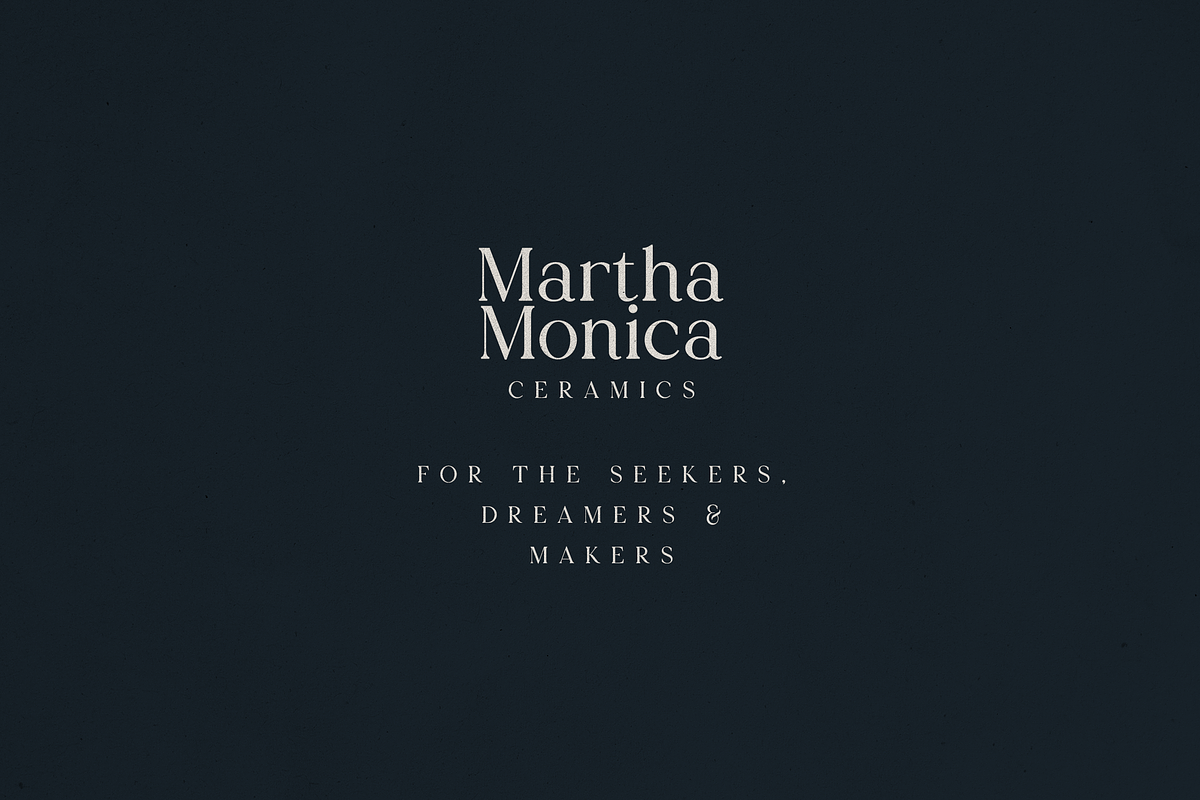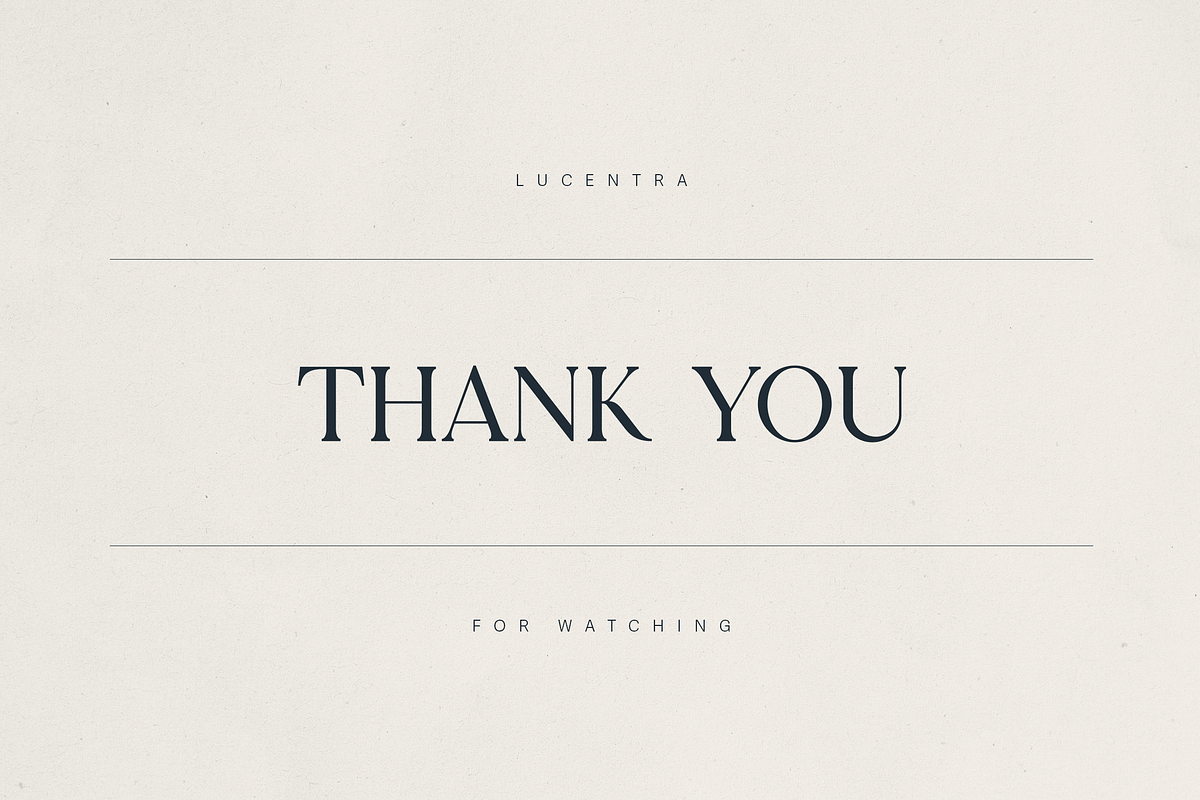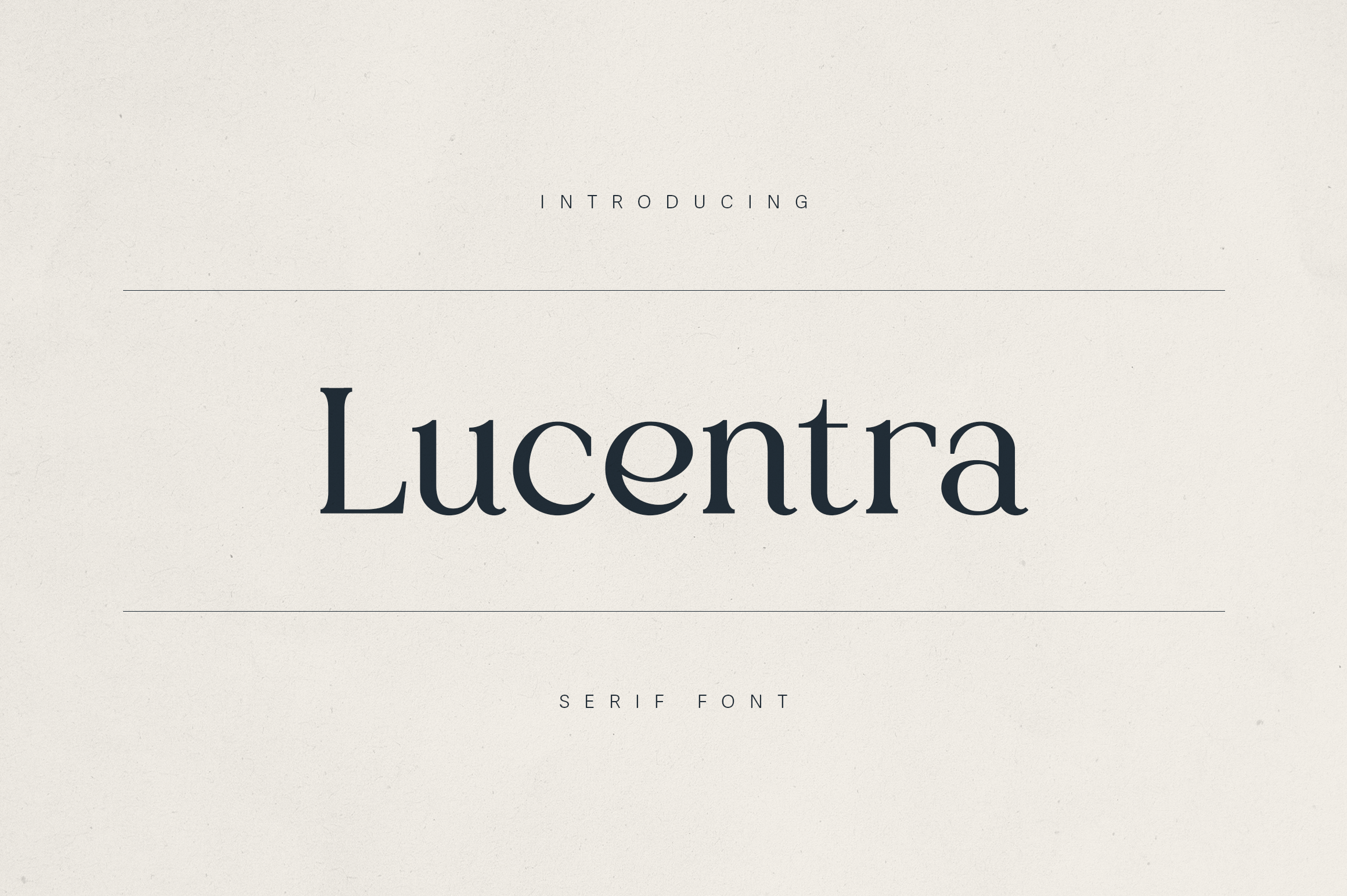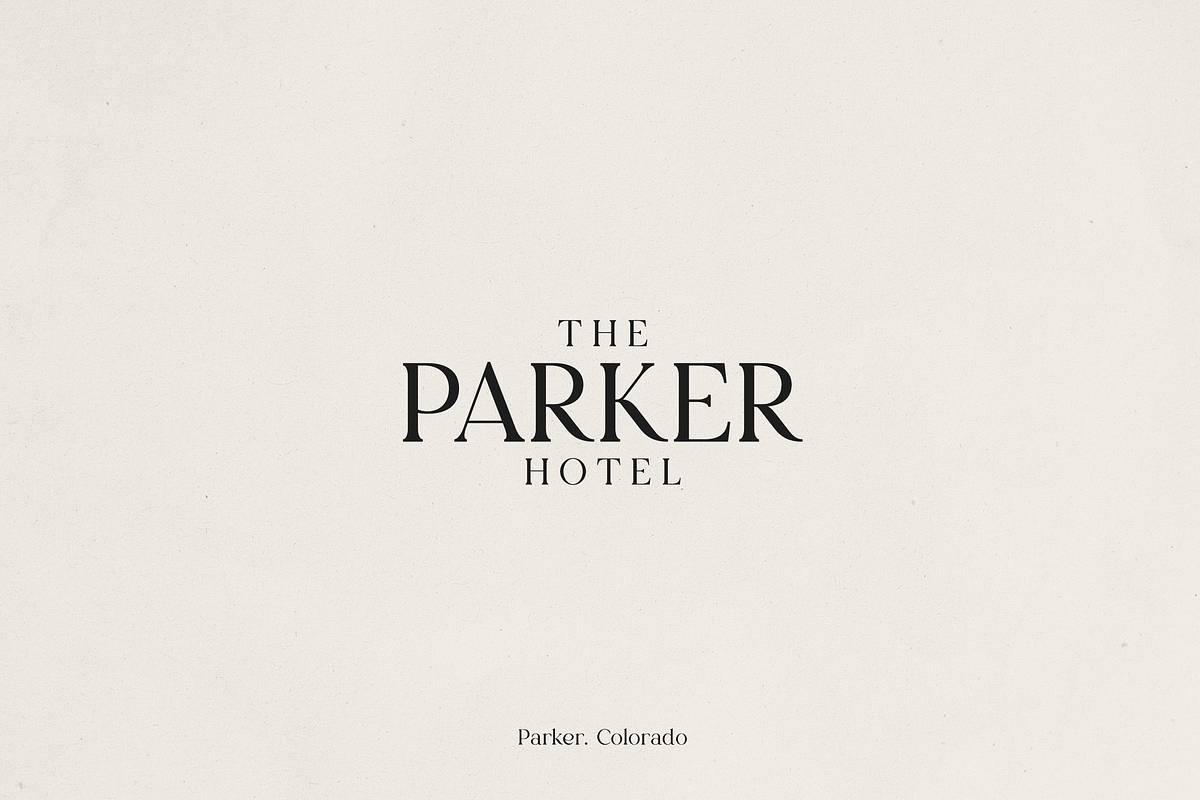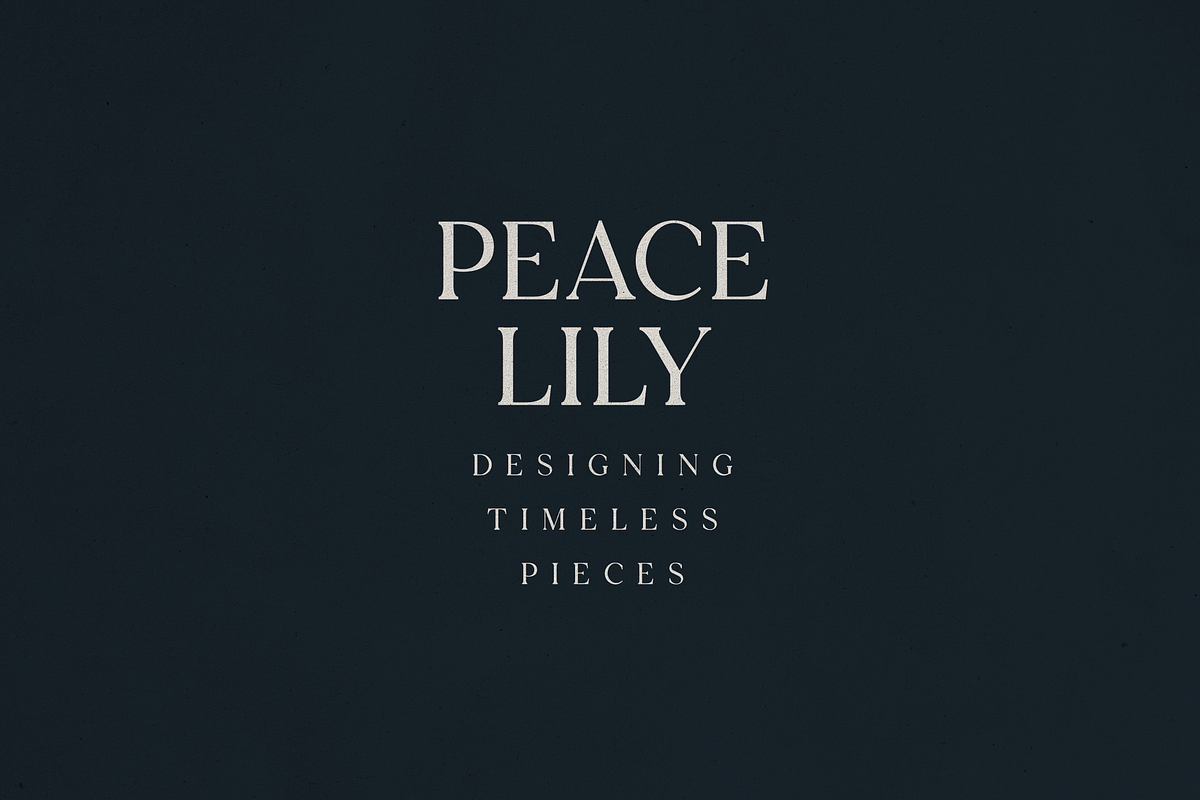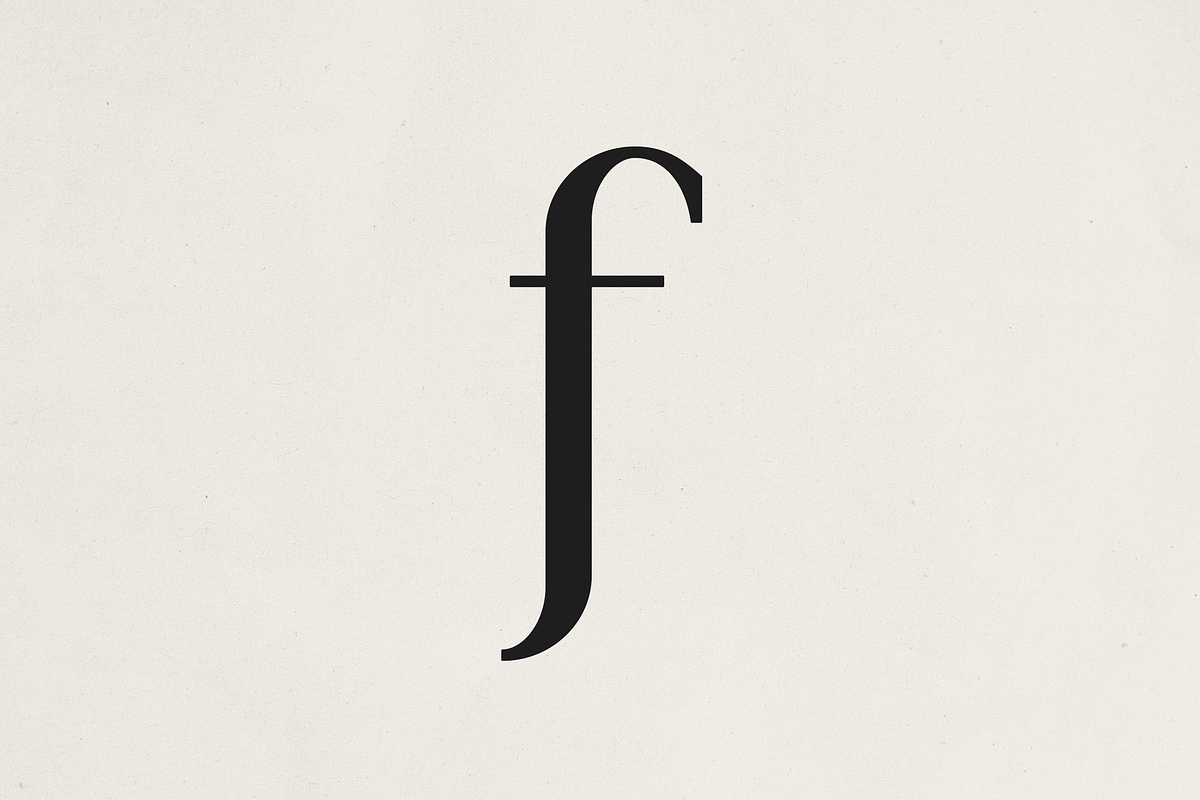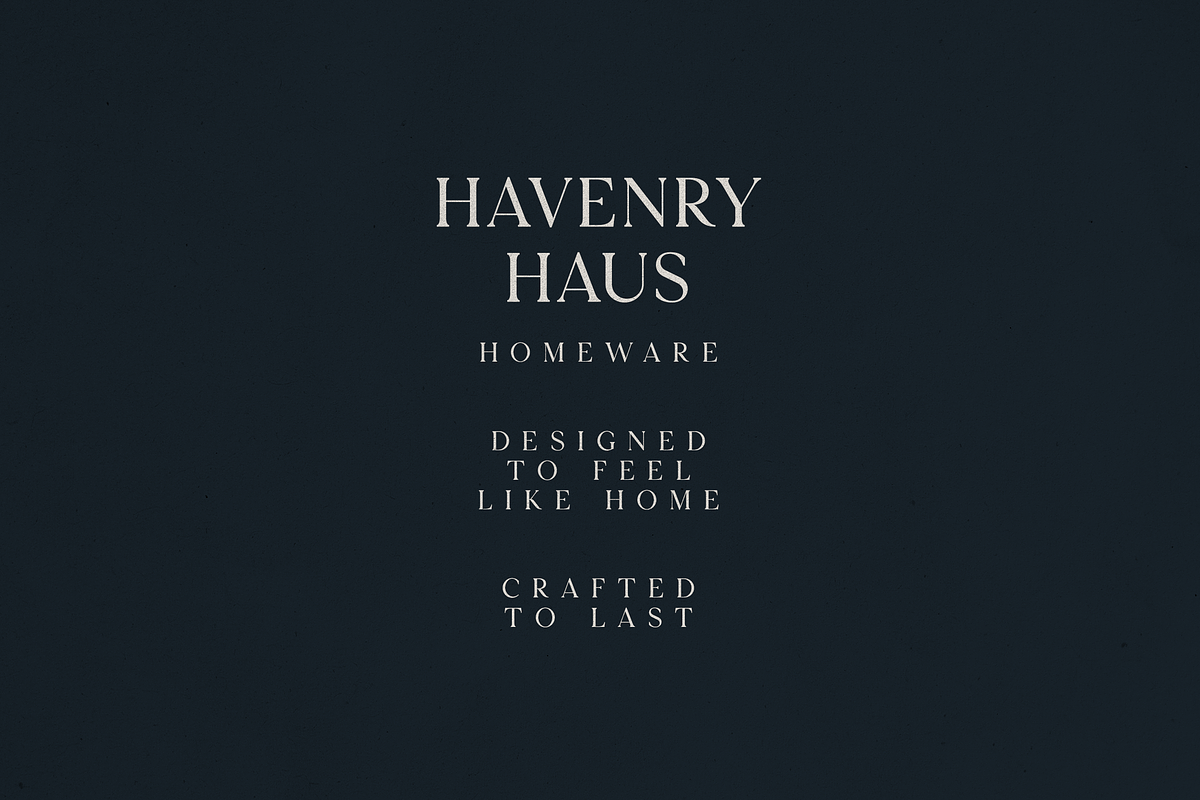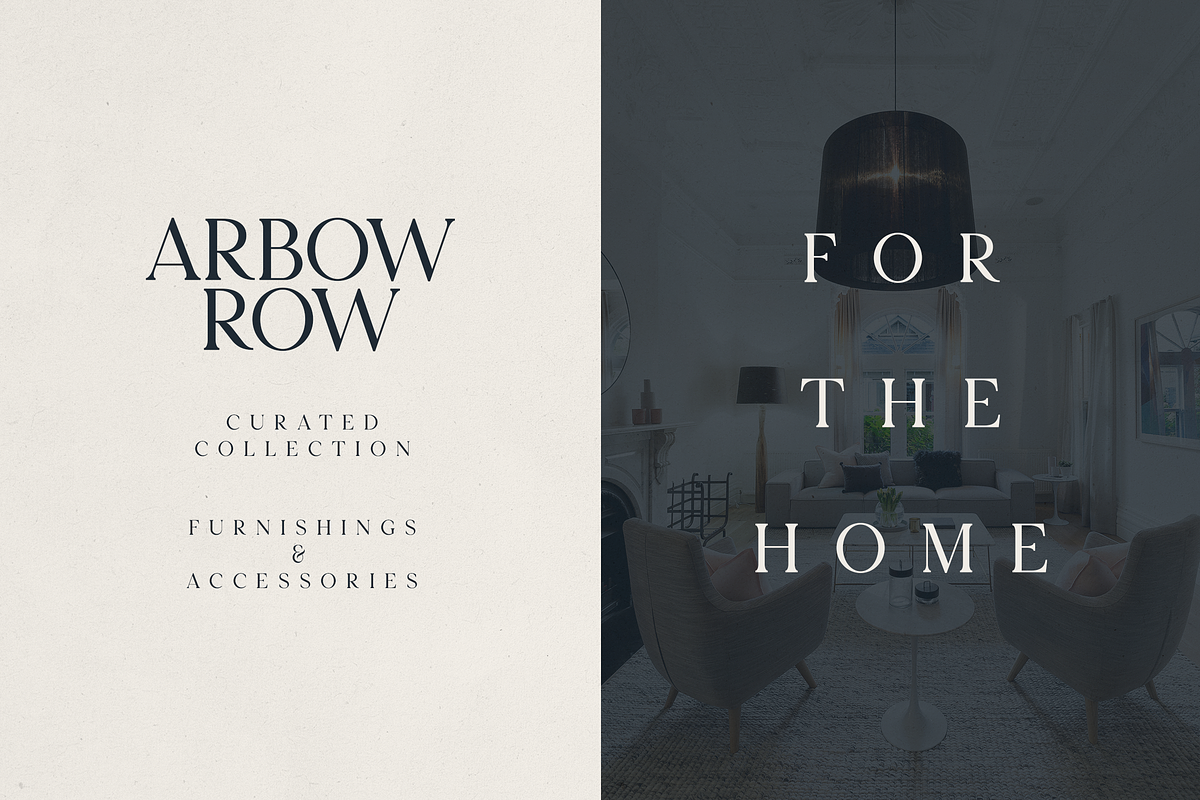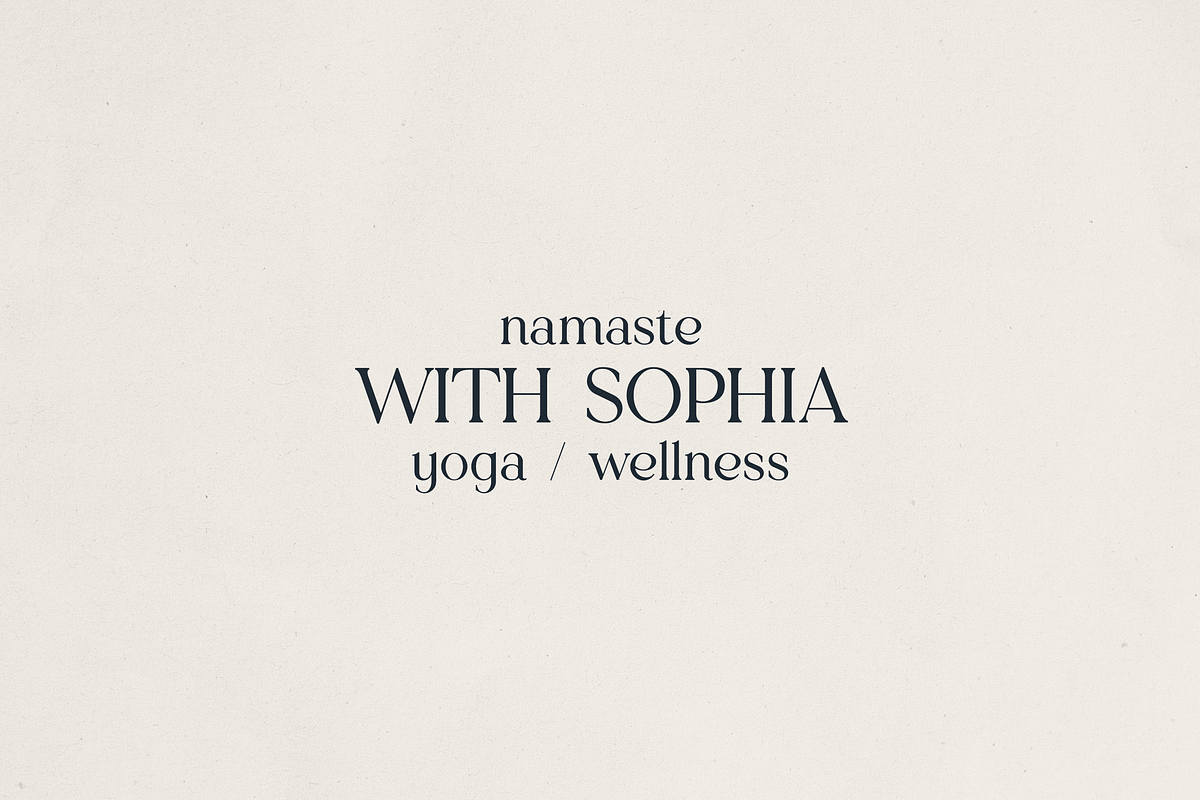
Lucentra – Refined Serif Font
Lucentra – Refined Serif Elegance
Lucentra is a sophisticated serif typeface that blends timeless elegance with modern refinement. Its graceful curves, high contrast strokes, and subtly flared serifs create a harmonious balance between classic beauty and contemporary clarity. Perfect for luxury branding, editorial layouts, hospitality identities, and lifestyle products, Lucentra brings a sense of poise and sophistication to any design.
With extensive multilingual support, meticulous attention to detail, Lucentra is crafted for creatives who value both style and substance. From high-end product packaging to refined print layouts, this font communicates confidence, elegance, and lasting impression.
Ideal for: Branding, Editorial, Packaging, Invitations, Fashion, Lifestyle, and Hospitality Design.